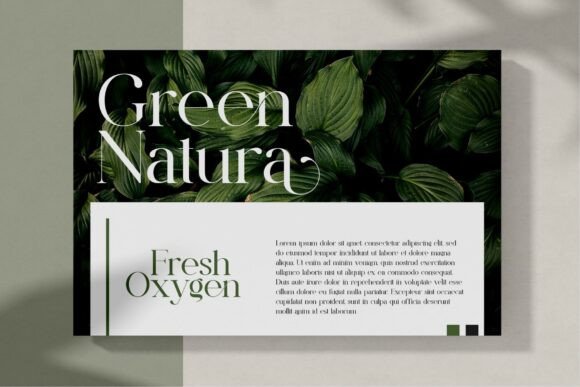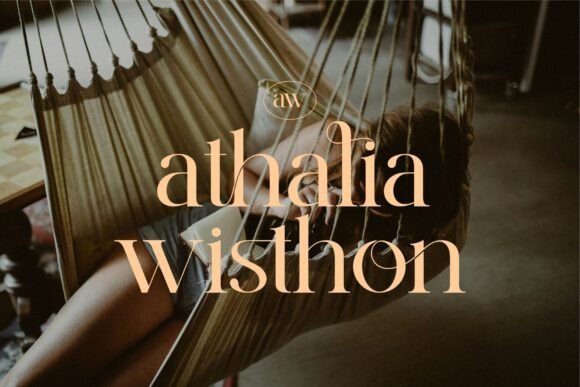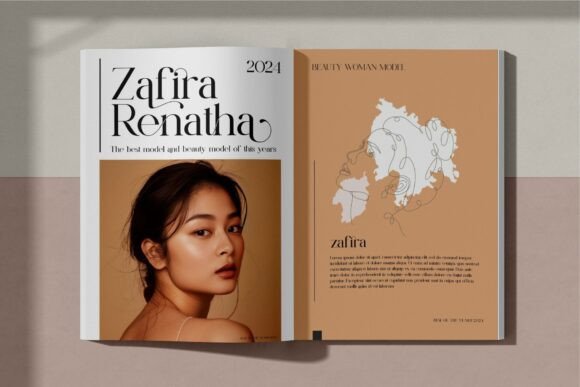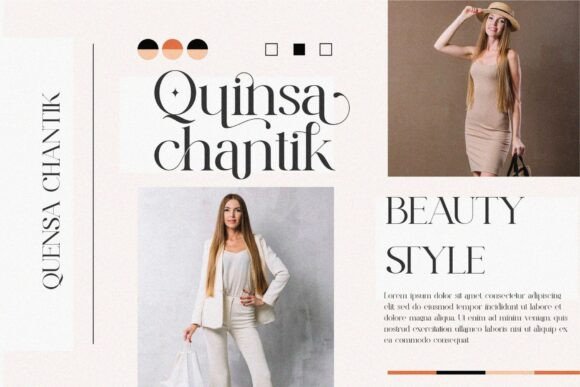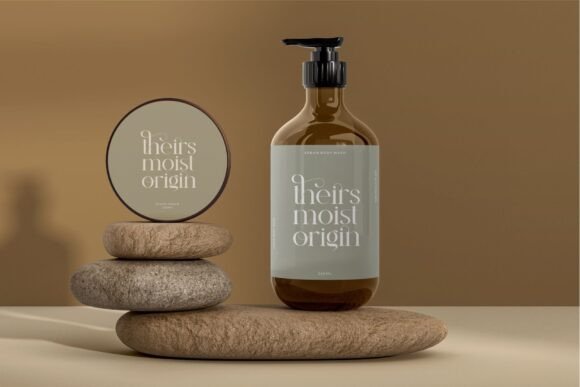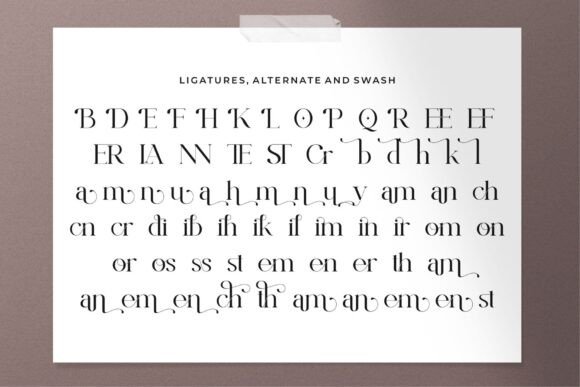
Introducing Crelist Font: Elevate Your Designs with Elegance and Sophistication
In the world of typography, fonts play a crucial role in conveying the tone and personality of a design. For designers and crafters seeking a serif font that embodies balance, smoothness, elegance, and style, Crelist Serif is an exceptional choice. This beautiful font is designed to enhance various design projects, including invitation cards, company logos, movie titles, business cards, book titles, brand names, and more.
The Essence of Crelist Serif
Crelist Serif is a smooth serif font that exudes sophistication and elegance. Its stylish alterations and ligatures make this font a perfect partner for any project. The font’s balanced and smooth features ensure that it can be used in a wide range of applications, from print materials to digital platforms. Whether you’re designing a luxury brand’s logo or a wedding invitation card, Crelist Serif can add a touch of refinement and class to your work.
Key Features of Crelist Font
- Balanced and Smooth Design: Crelist Serif boasts a well-balanced and smooth design, making it easy to read and visually appealing.
- Elegant and Stylish: The font’s elegant and stylish features make it perfect for designs that require a touch of sophistication.
- Beautiful Character: Each character in Crelist Serif is carefully crafted to ensure that the font has a unique and beautiful personality.
- Stylish Alterations and Ligatures: The font includes stylish alterations and ligatures, adding an extra layer of elegance to your designs.
- Versatile: Crelist Serif can be used in various design projects, including invitation cards, company logos, movie titles, business cards, book titles, and brand names.
Use Cases for Crelist Font
Crelist Serif’s versatility makes it an excellent choice for a wide range of design projects. Here are some use cases where this font can shine:
- Invitation Cards: Add a touch of elegance to your wedding invitation cards, birthday party invites, or any other special occasion with Crelist Serif.
- Company Logos: Create a sophisticated and professional logo for your business with Crelist Serif.
- Movie Titles and Names: Use Crelist Serif to create eye-catching movie titles and names that convey a sense of luxury and glamour.
- Business Cards: Elevate your business card design with Crelist Serif, making a lasting impression on potential clients.
- Book Titles and Brand Names: Use Crelist Serif to create beautiful book titles and brand names that stand out.
Why Choose Crelist Font?
With numerous fonts available, why should you choose Crelist Serif for your design projects? Here are some compelling reasons:
- Unique and Beautiful Character: Crelist Serif has a distinct and beautiful character that sets it apart from other serif fonts.
- Elegance and Sophistication: The font’s elegant and sophisticated features make it perfect for designs that require a touch of luxury.
- Versatility: Crelist Serif can be used in various design projects, making it a valuable addition to your font library.
- Easy to Read: The font’s balanced and smooth design ensures that it is easy to read, even in small sizes.
In conclusion, Crelist Serif is an exceptional font that can elevate your designs with its elegance, sophistication, and beauty. Its versatility, balanced design, and stylish features make it a perfect choice for various design projects. Whether you’re a designer or crafter, Crelist Serif is an excellent addition to your font library. So, why not give Crelist Serif a try and experience the difference it can make in your designs?